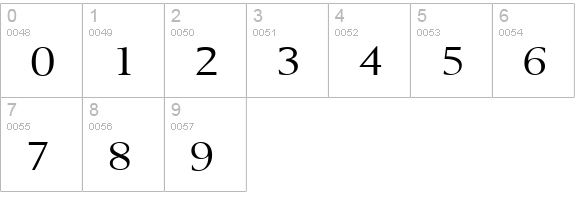
Revive 8 Wide Normal Font Details
Revive 8 Wide Normal is the standard, neutral, extended-width variant in the Revive typeface family \xE2\x80\x94 well suited to general body text, paragraphs, and standard typographic work.
Revive 8 Wide Normal font is a stunning typeface that effortlessly combines modernity with simplicity. Its wide and bold letterforms make a strong visual impact, capturing attention and ensuring readability in any design project. The clean lines and balanced proportions of this font create a harmonious and professional look, making it perfect for a wide range of applications. With its versatile and stylish aesthetic, Revive 8 Wide Normal font is suitable for both headlines and body texts. Whether you're designing a logo, creating a brand identity, or working on a website, this font will add a touch of elegance and sophistication to your project. What makes Revive 8 Wide Normal font even more appealing is that it is available for free download at FontsMarket.com. This means that you can easily access and use this exceptional font without any cost. FontsMarket.com offers a wide selection of high-quality fonts, and Revive 8 Wide Normal font is just one of the many gems you can find there. So, if you're looking for a versatile and visually striking font that will elevate your designs to the next level, look no further than Revive 8 Wide Normal font. Download it for free at FontsMarket.com and let your creativity soar.